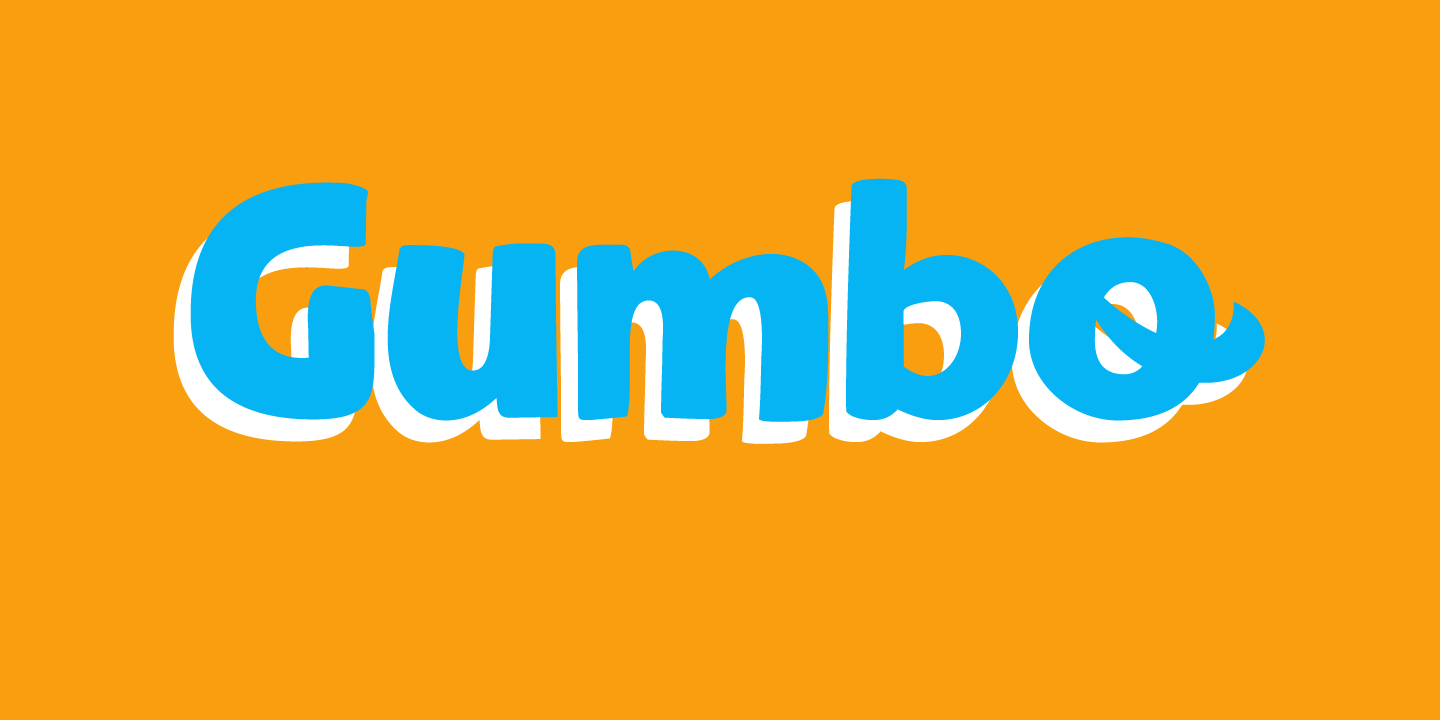
Gumbo Font is perfect for Southern restaurant branding, Cajun cuisine menus, New Orleans event posters, jazz festival graphics, Louisiana tourism materials, spicy food packaging, blues music album covers, bayou adventure tours, cultural heritage displays, and authentic Southern hospitality signage.
Gumbo Font is exciting because it captures the rich cultural flavor and soulful warmth of Southern American heritage through its distinctive letterforms that embody the spirit of Louisiana jazz, Creole traditions, and the vibrant melting pot of cultures that defines authentic Southern charm.
The Gumbo Font family includes Regular, Bold, Spicy, Jazzy, Heritage, and Creole variants, each maintaining the distinctive Southern character while offering different weights and cultural styles for authentic regional design applications.
Savor the authentic taste of Southern culture with Gumbo Font Free Download. This flavorful typeface brings the rich heritage and soulful spirit of the American South into contemporary design, capturing the warmth and cultural depth that defines Southern hospitality and tradition. The font's distinctive character and cultural authenticity make it perfect for brands seeking to communicate genuine Southern charm and the vibrant cultural heritage of Louisiana and the Gulf Coast.
Gumbo Font excels in hospitality and cultural applications where authenticity and regional character are essential. Its distinctive personality draws inspiration from jazz music, Creole culture, and Southern culinary traditions, making it ideal for restaurants, tourism companies, and cultural organizations targeting audiences who appreciate authentic regional experiences and the rich cultural tapestry of the American South.
The creation of Gumbo Font involved extensive research into Southern typography traditions and cultural design elements, ensuring each character reflects the genuine warmth and cultural richness that defines Southern hospitality. This attention to cultural authenticity creates letterforms that feel connected to the real traditions and heritage of the region rather than stereotypical representations.
For designers working with regional cuisine brands, cultural tourism, or Southern hospitality businesses, Gumbo Font provides the perfect balance of cultural authenticity and contemporary functionality. It pairs beautifully with warm color palettes, complements traditional Southern imagery, and adds instant regional personality to projects requiring genuine cultural connection and Southern charm.
Whether you're creating Southern restaurant identities, cultural event materials, regional tourism campaigns, or heritage celebration graphics, Gumbo Font delivers the authentic Southern voice that resonates with audiences who appreciate genuine cultural experiences and traditional Southern hospitality. Its combination of cultural heritage and practical design makes it an invaluable tool for celebrating the rich traditions and warm spirit of Southern culture.